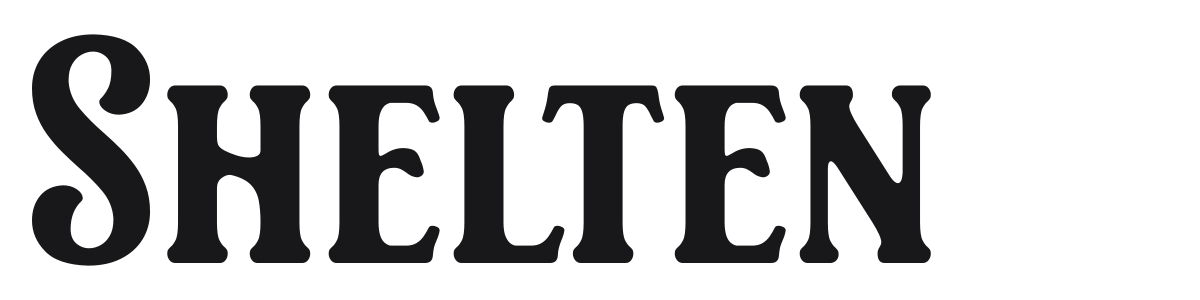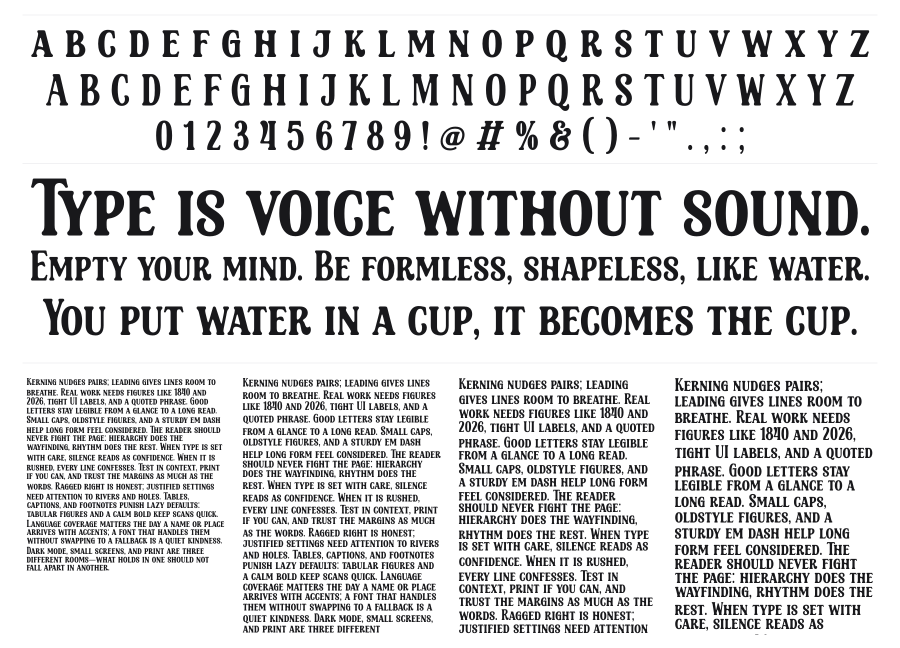
Shelten
Shelten is a bold condensed slab serif with strong stroke contrast and a distinctly vintage editorial character. Its heavy stems, bracketed serifs, and tight proportions recall 19th-century display typography without feeling like a direct revival. It carries real weight on posters, packaging, and brand identities that need heritage credibility.